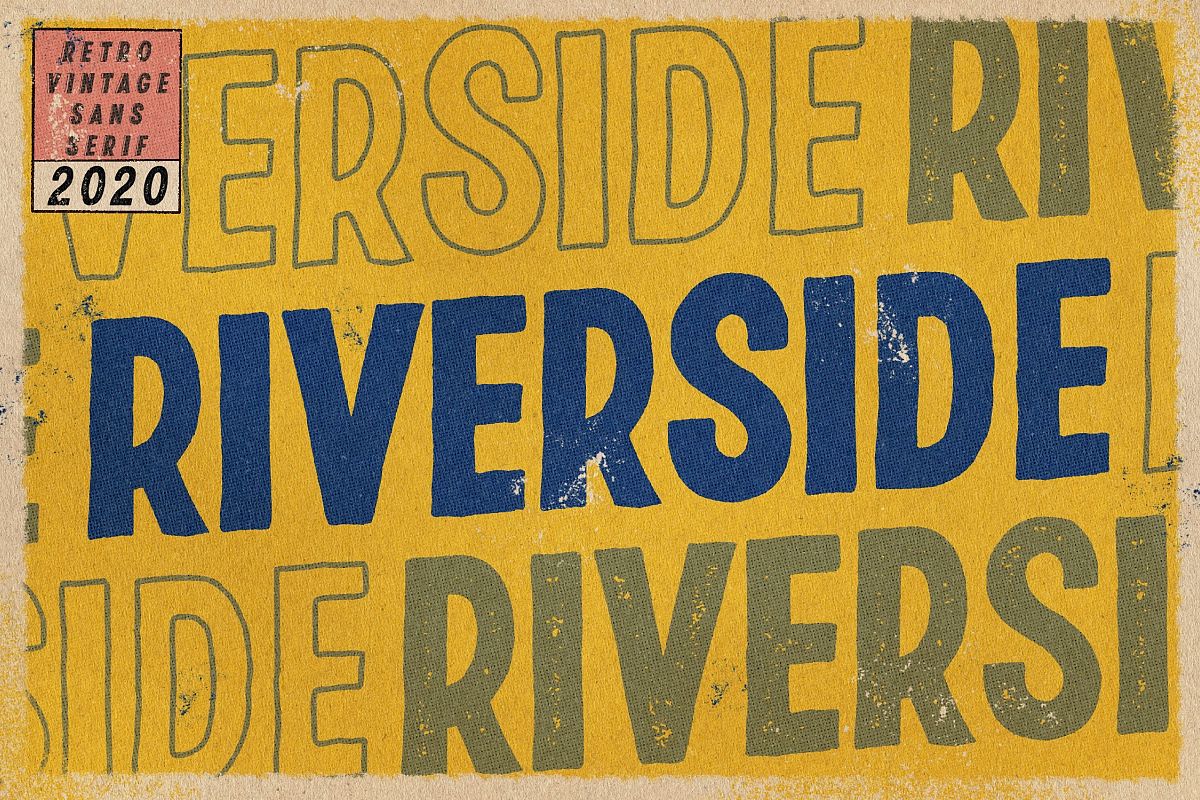
RIVERSIDE | Retro Vintage Sans Serif
Hello from the Riverside!
The Riverside font is a fun and playful handwritten Retro Sans Serif that is made to give your project a retro vintage style! The chunky weight is perfect for any size to give your design a readable type. Perfect for vintage illustrations, logo, brand design, packaging, logo titles, photography, shirt designs, and many others.
The Riverside font offers 3 styles, Clean, Textured, and Outline. All varieties also offer Italics!